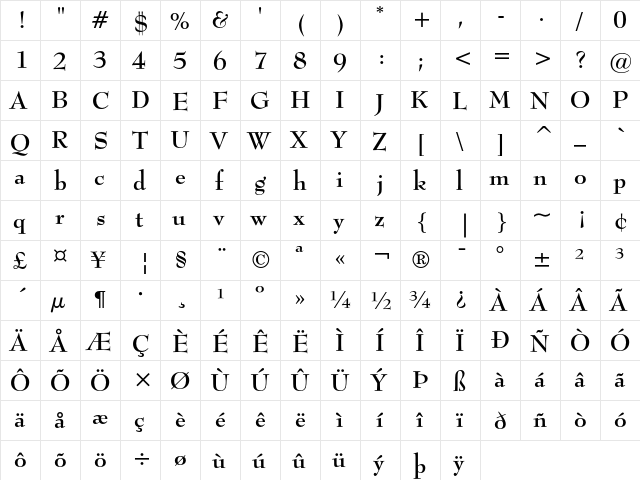
Bernhard Modern Bold Font Preview
Bernhard Modern Bold
Design Context for Bernhard Modern Typeface
Bernhard Modern takes a measured approach to typography — its balanced proportions and neutral character make it a reliable workhorse for both digital and print work. The heavy weight commands attention and anchors typographic hierarchies.